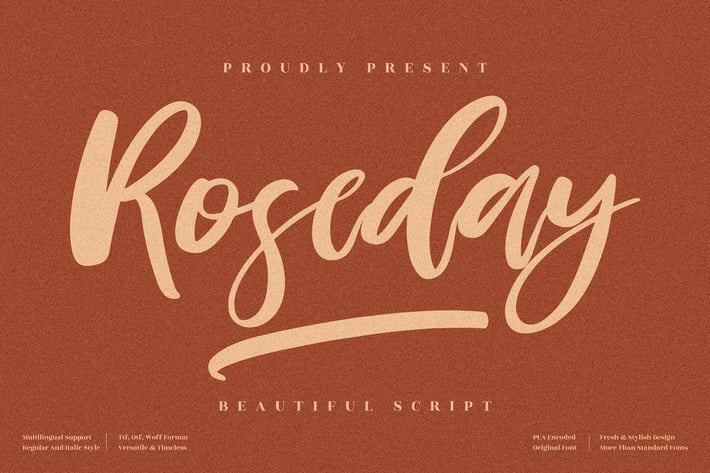
Roseday Handwritten Font
Roseday is a beautifully crafted handwritten script font that brings warmth, elegance, and a modern handmade touch to your projects. With smooth curves and stylish strokes, this font is perfect for creating designs that feel both professional and personal. It works well for branding, invitations, product packaging, and more, making every piece stand out with charm and sophistication.
+ Handwritten script style with natural flow
+ Elegant curves and balanced strokes
+ Regular & Italic styles included
+ Multilingual support
+ Versatile for both print and digital use
Add a touch of elegance and handcrafted beauty to your projects with Roseday Handwritten Font — perfect for timeless, stylish, and heartfelt designs!